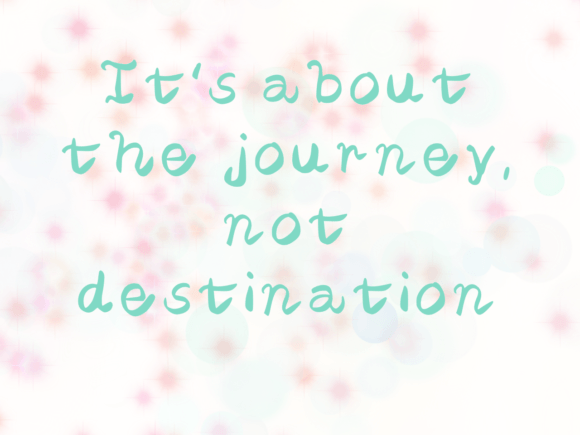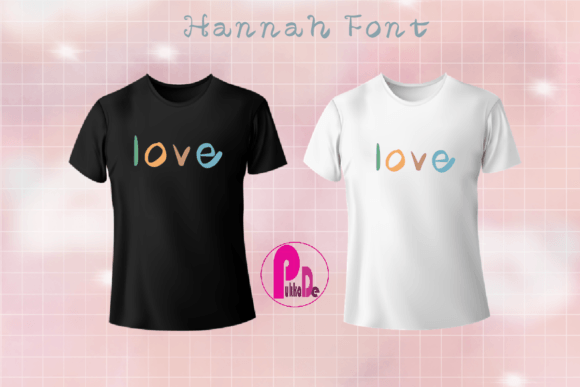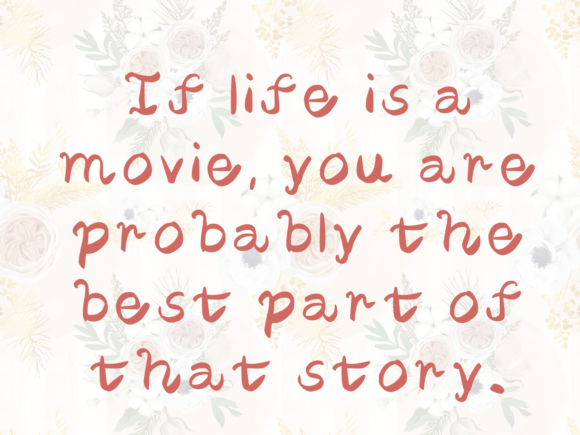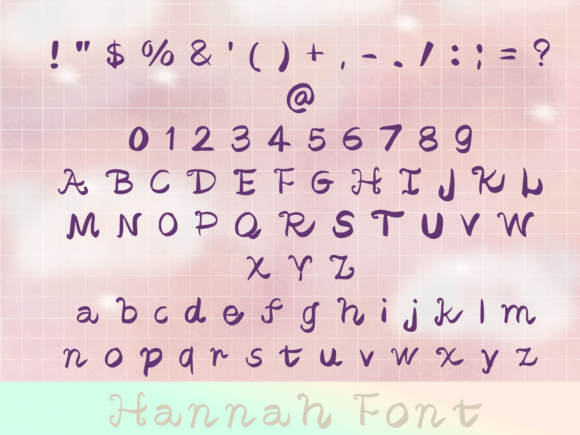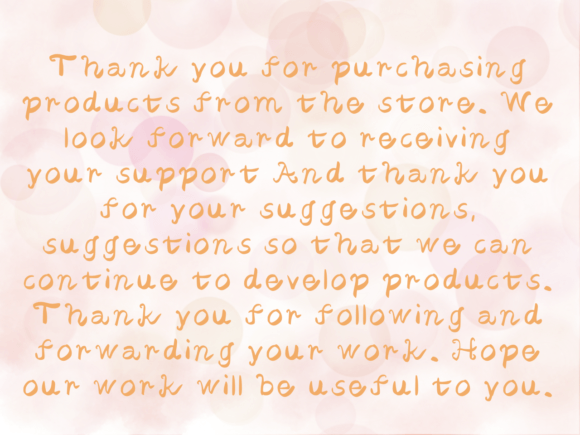
The Quirky Charm of Hannah Font: A Designer’s Delight
I’ll never forget the time I was working on a whimsical craft project for a client, and I just couldn’t find the right font to match the playful vibe. The project was a handmade card design, and I wanted something that would add a touch of personality to the overall look. That’s when I stumbled upon Hannah Font, a fun and quirky handwritten font that instantly caught my attention. In this article, I’ll share my experience with Hannah Font, its features, and how to make the most of it in your designs.
An Honest Review of Hannah Font
What I Love About Hannah Font
- ✨ Unique and quirky handwritten style that’s perfect for crafty projects
- 💫 Supports OpenType features, glyphs, and stylistic alternates for added versatility
- 🎨 Comes with a range of characters, including uppercase and lowercase letters, numbers, and punctuation marks
While Hannah Font is an excellent choice for many projects, there are a few things to keep in mind:
- 🤔 Some characters may not work well at very small font sizes (less than 10pt)
- ⚠️ Limited availability of special characters, such as accented letters or non-English characters
The Backstory of Hannah Font
Hannah Font was designed by a talented type designer who wanted to create a font that would capture the playful spirit of handwritten writing. Inspired by childhood scribbles and crafty projects, Hannah Font was born with a unique and quirky personality that’s perfect for crafty designs.
| Font Name | Hannah Font |
| Author | Pukka De |
Q: What type of projects is Hannah Font best suited for?
A: Hannah Font is perfect for crafty projects, handmade cards, party invitations, social media graphics, and other creative designs that require a playful touch.
Q: Is Hannah Font available in different font weights?
A: Currently, Hannah Font is available in a single font weight. However, the font designer may release additional weights or variations in the future.